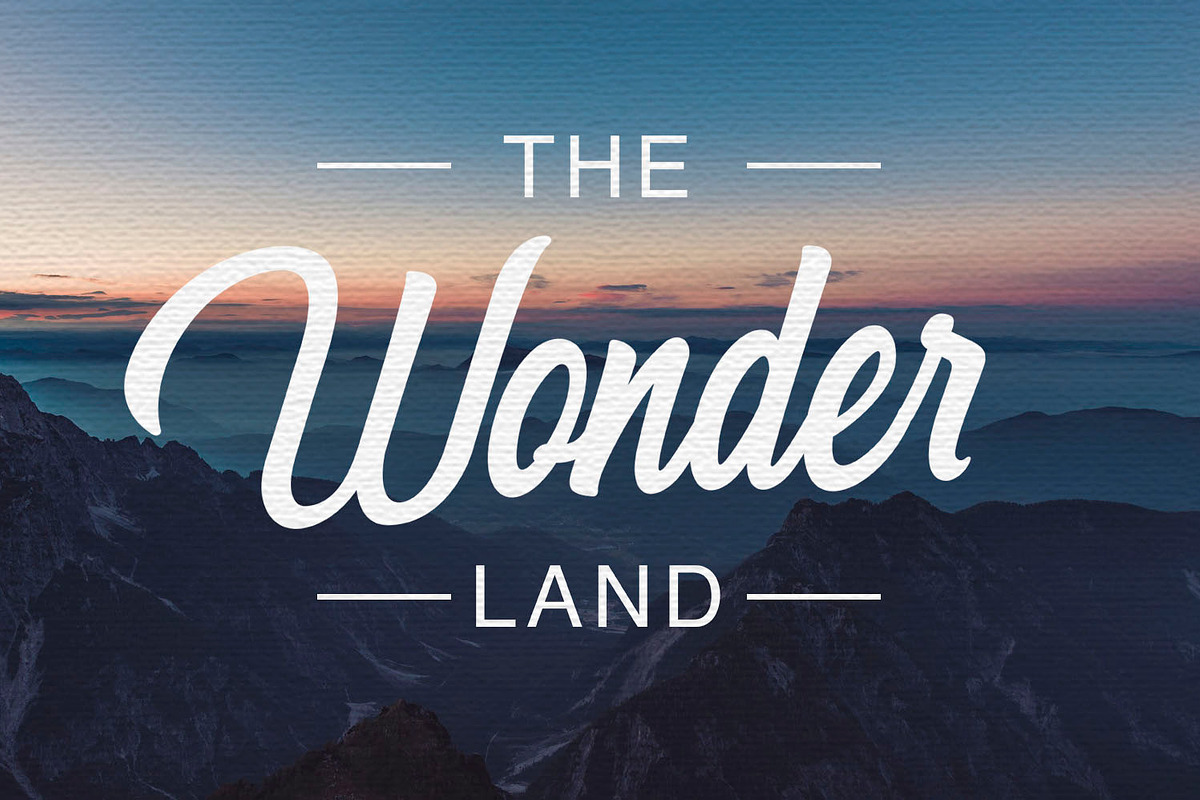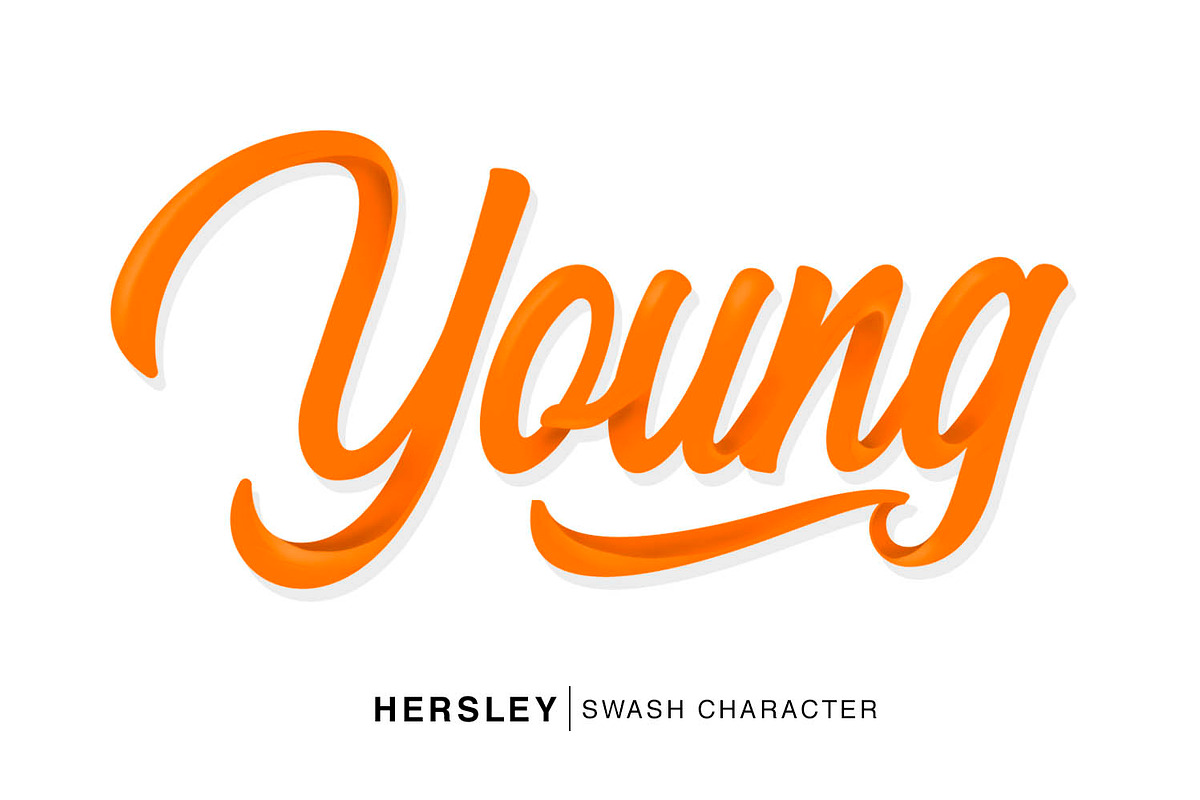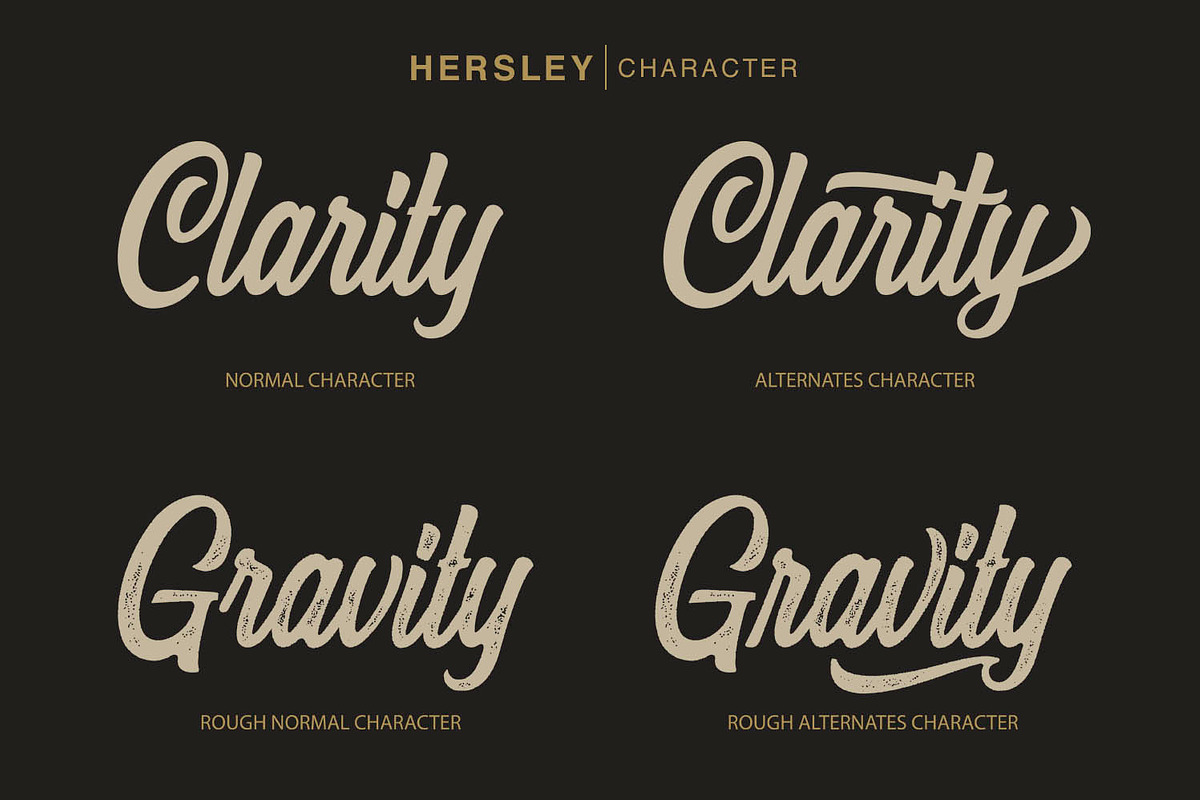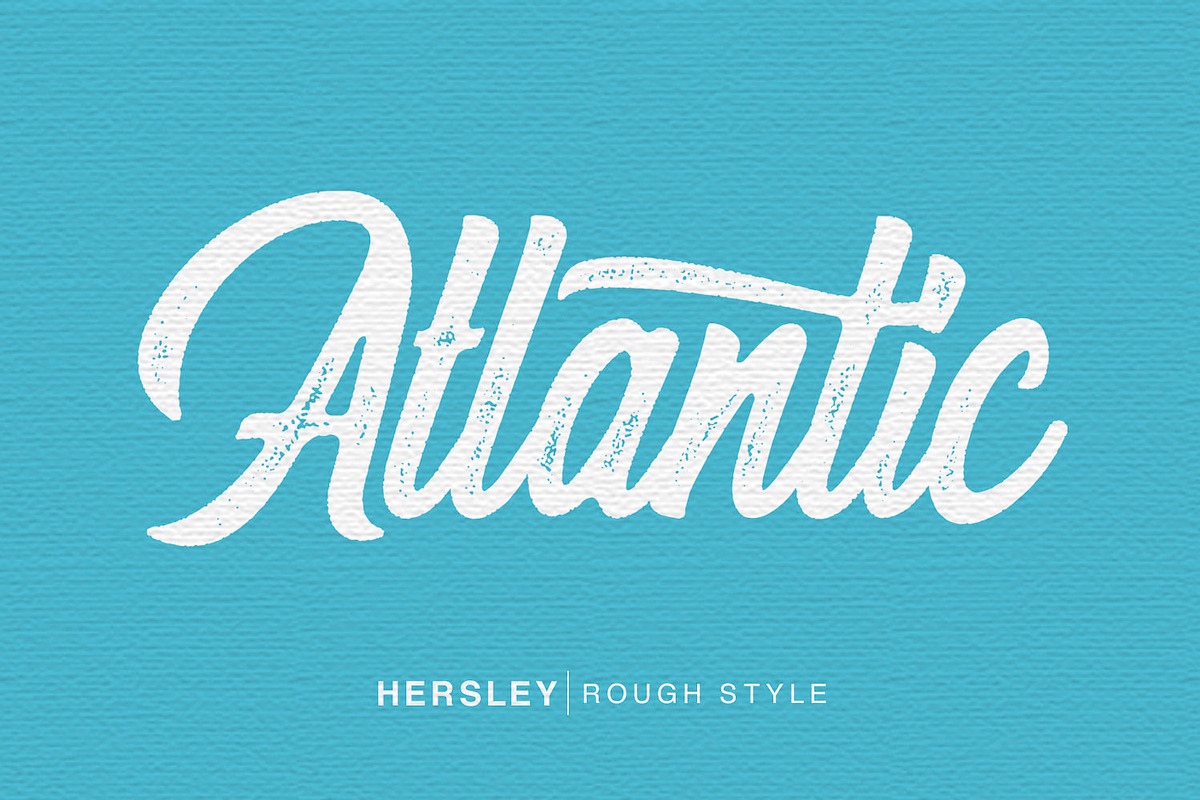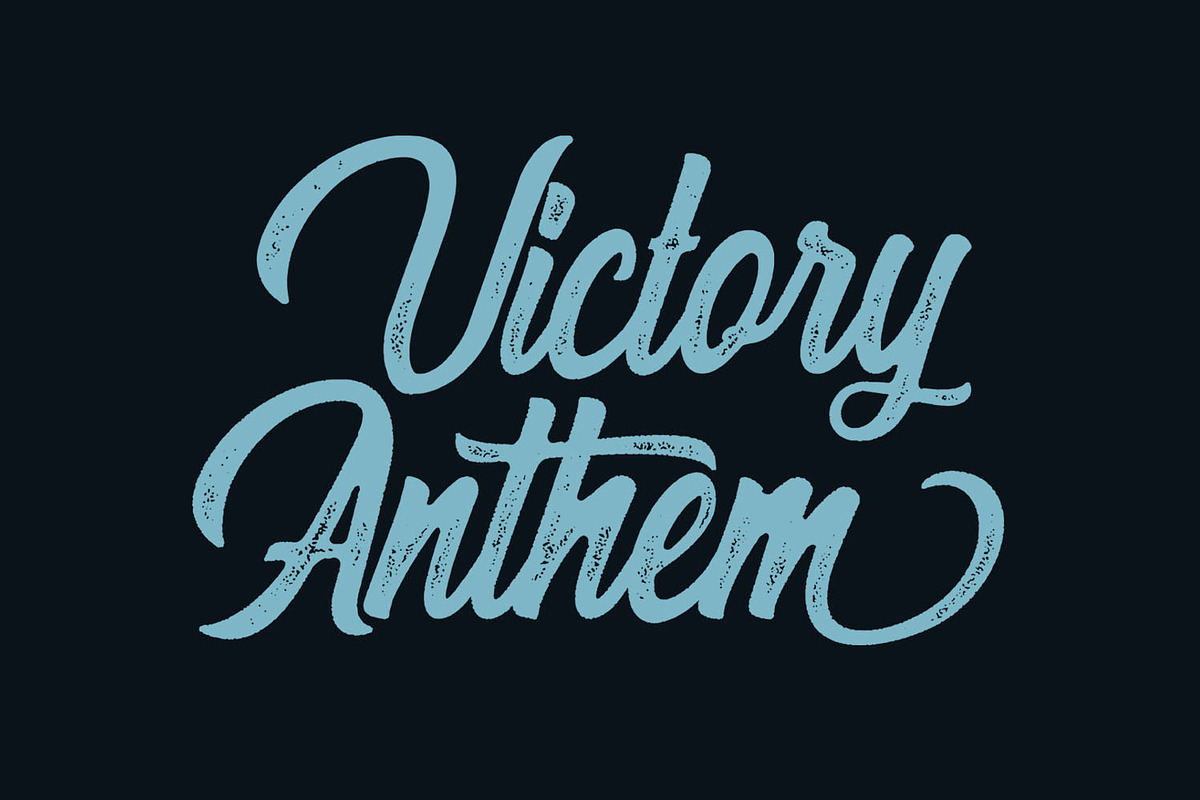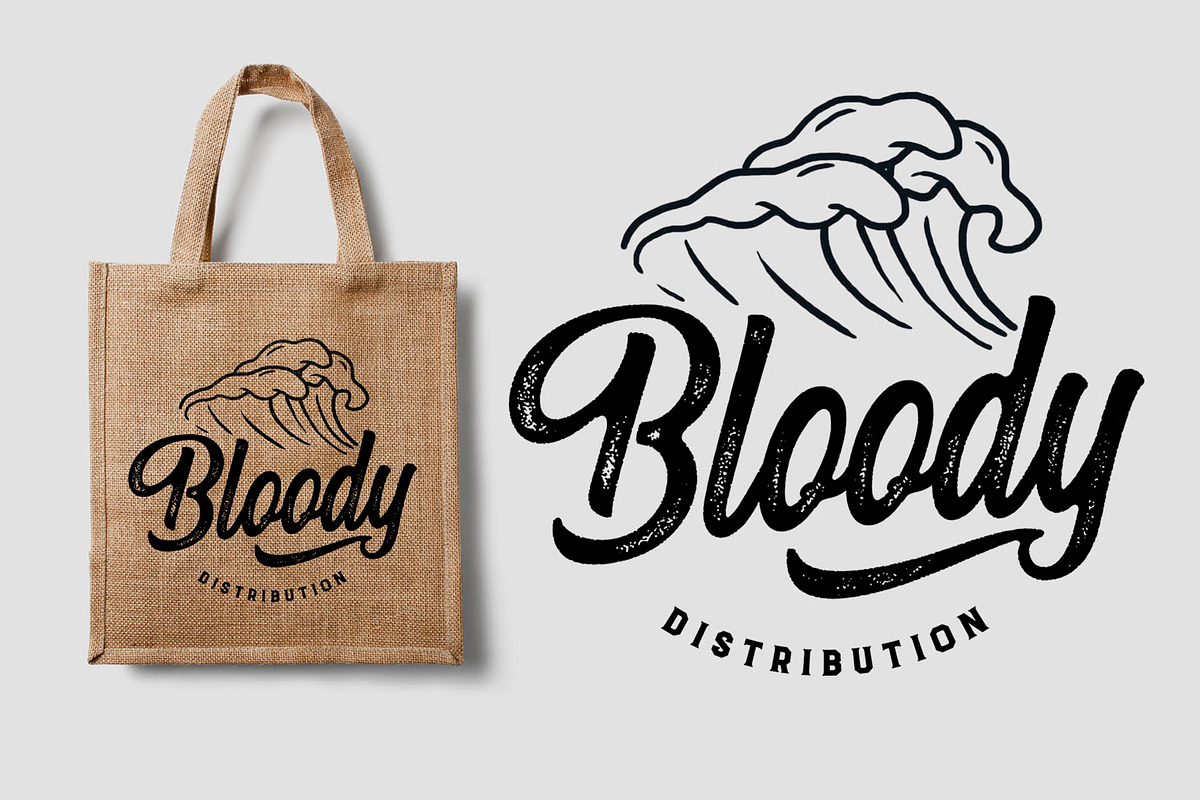
Hersley Typeface
Hersley Typeface are clean and rough style font. You can use Hersley for your logo design, poster design, T-Shirt design, branding, badge, name card, etc. This font have many alternates characters, so you can combine Hersley regular characters with Hersley alternates character for your design.
Numeric & Punctuation
- This font have many alternates characters, so you can combine Hersley regular characters with Hersley alternates character for your design.
- Hersley Regular
- Herlsey Rough Regular
Hersley Typeface by Secondivison Supply fits naturally into Branding, posters, packaging, typography.